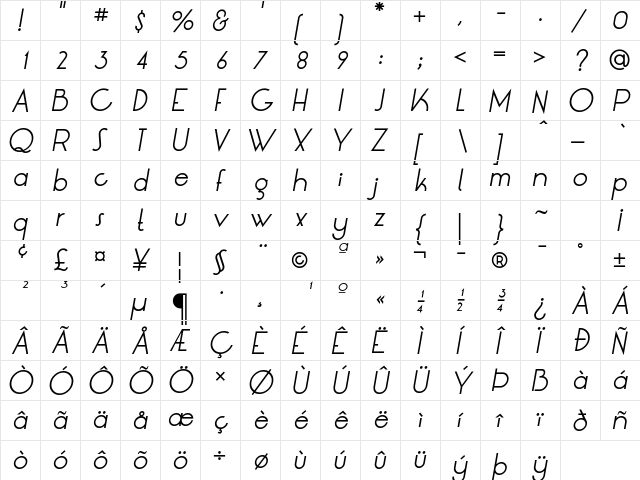
LT Oksana Italic
| Designer | Lauren Thompson |
Design Context for LT Oksana Typeface
LT Oksana offers clean, dependable letterforms without strong stylistic allegiance, making it a practical choice for designers who need flexibility. The dynamic lean of this cut emphasises speed and emphasis in any layout. The delicate stroke weight brings airiness and refinement to layouts.
Pro Tip: Use LT Oksana for emphasis, pull quotes, and subheadings where its slanted energy can add rhythm to the layout.